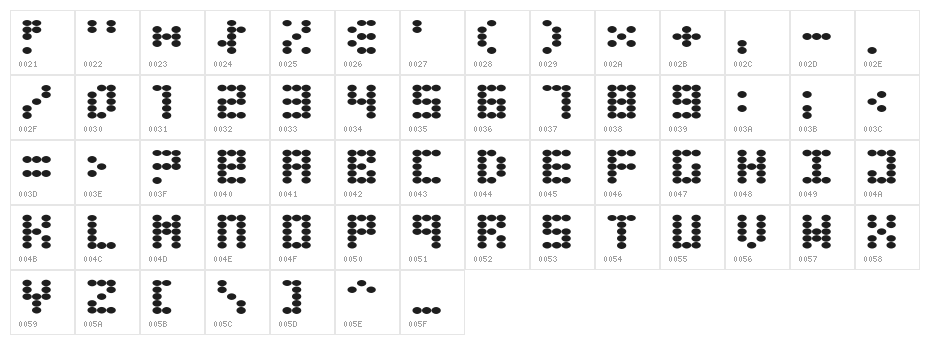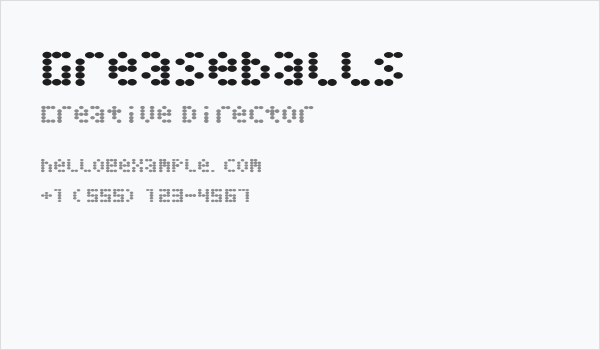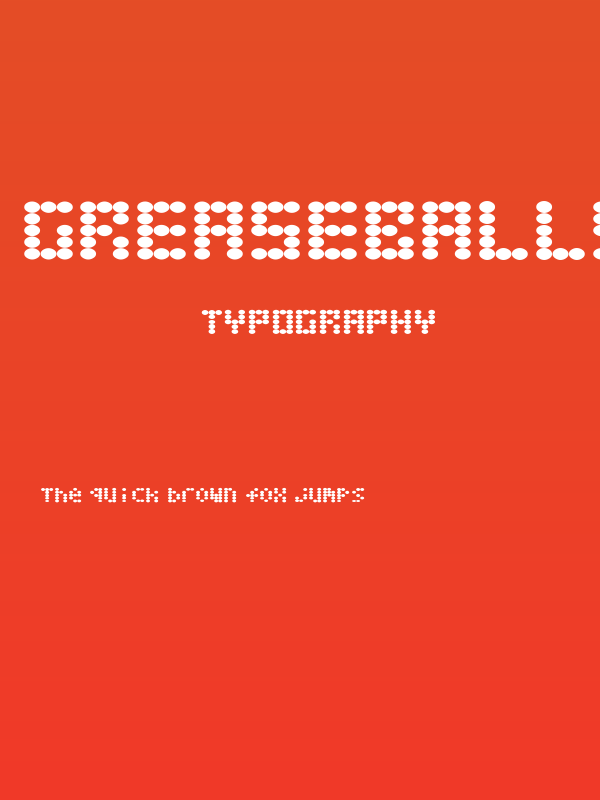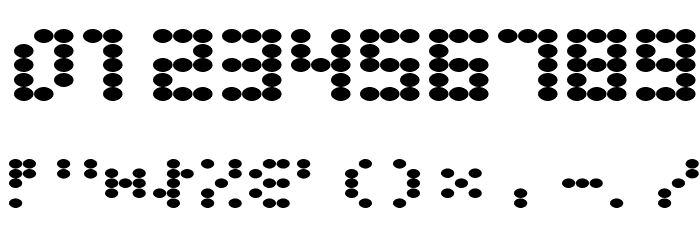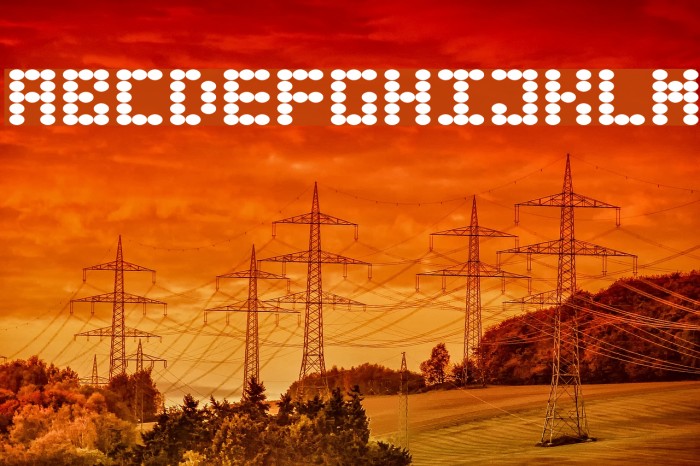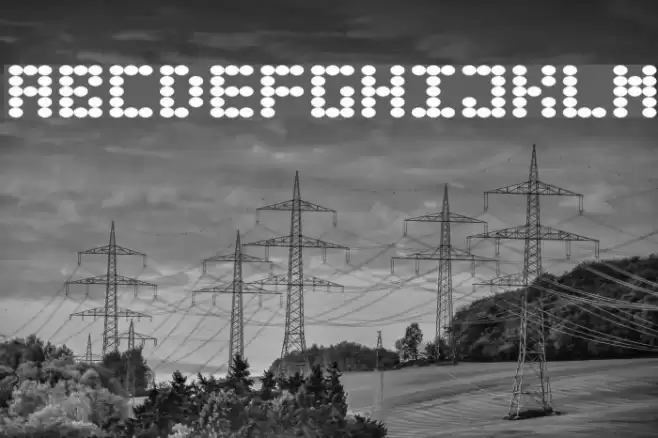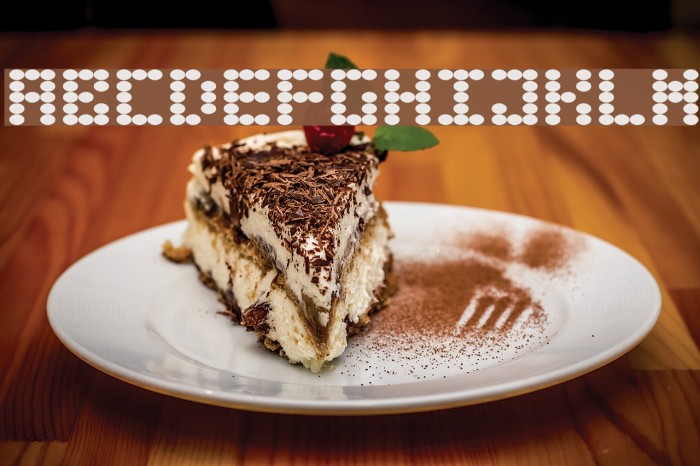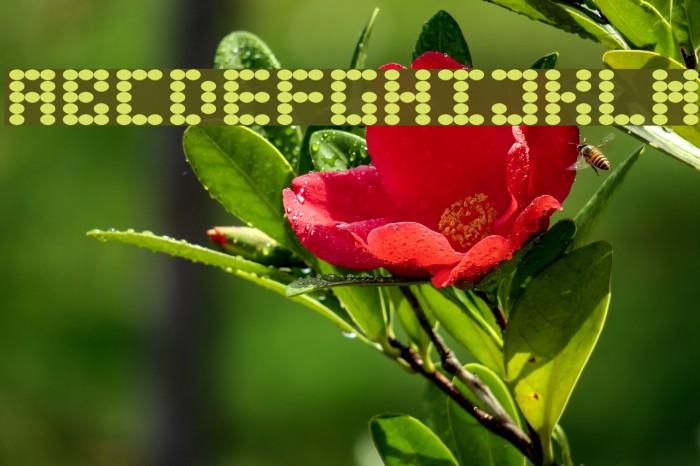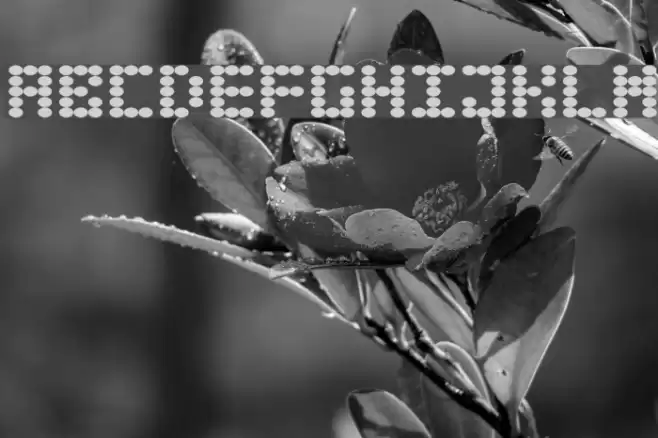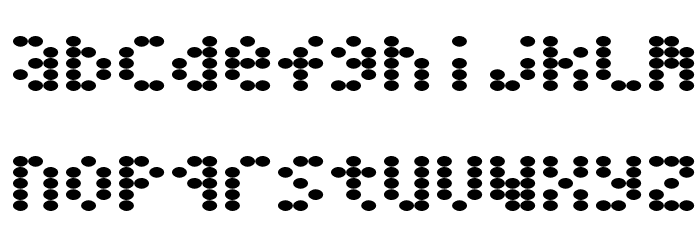
Greaseballs Font
Greaseballs Description
This font features a unique design composed entirely of small, evenly spaced dots forming each character. The style is playful and modern, with a digital or pixelated aesthetic that stands out. Each letter and number is constructed with precision, maintaining uniformity in size and spacing, which gives it a cohesive look. The font is highly legible despite its unconventional structure, making it suitable for creative and eye-catching designs. The rounded edges of the dots add a softness to the overall appearance, balancing the geometric nature of the font. This style is particularly effective in conveying a sense of fun and innovation, making it ideal for projects that aim to capture attention and convey a modern, tech-savvy image.
| Use Case | Logos, Headlines, Posters |
| Proposed Projects | Ideal for digital art, tech-themed posters, modern branding, and creative advertising campaigns. |